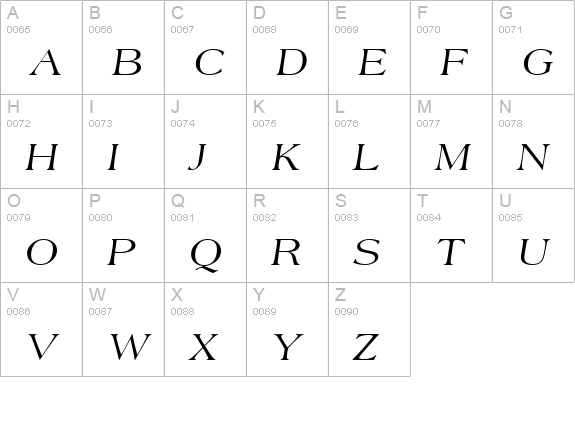
American Classic Italic Font Details
American Classic Italic is a distinctive, italic variant in the American typeface family \xE2\x80\x94 well suited to design and typography projects.
American Classic Italic font is a timeless and elegant typeface that exudes sophistication and charm. With its slanted, cursive style, this font is perfect for adding a touch of class to any project. The flowing lines and graceful curves of American Classic Italic make it ideal for formal invitations, branding materials, and editorial designs. What sets American Classic Italic font apart is its versatility and readability. Whether used for headlines or body text, this font maintains its legibility while adding a touch of luxury to any design. The classic yet modern feel of American Classic Italic makes it a popular choice among designers looking to elevate their work. Best of all, American Classic Italic font is free to download at FontsMarket.com. This means you can easily access this stunning typeface and incorporate it into your projects without any cost. Don't miss out on the opportunity to enhance your designs with the timeless beauty of American Classic Italic font. Download it today and see the difference it can make in your work!